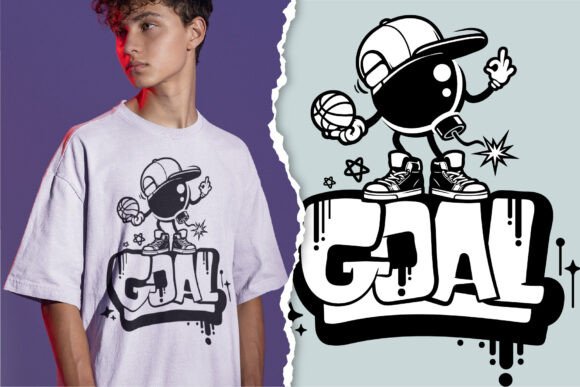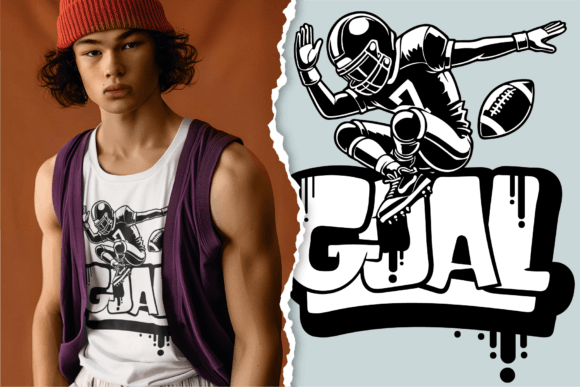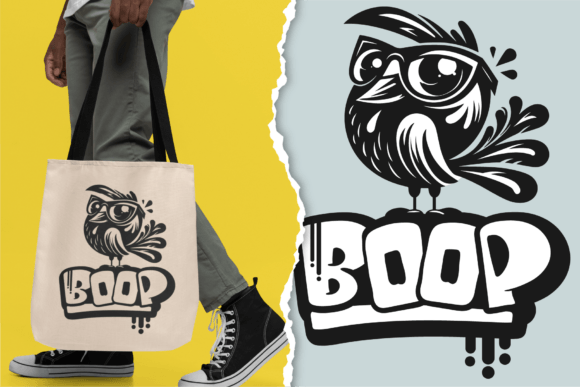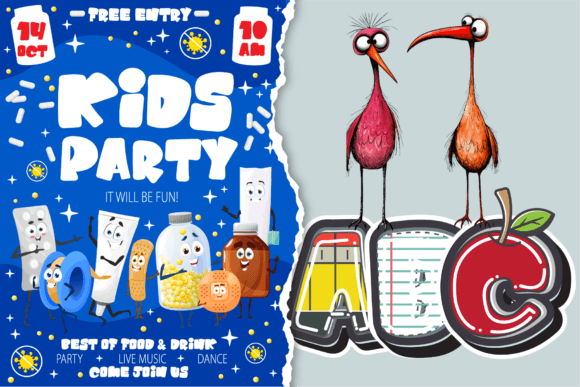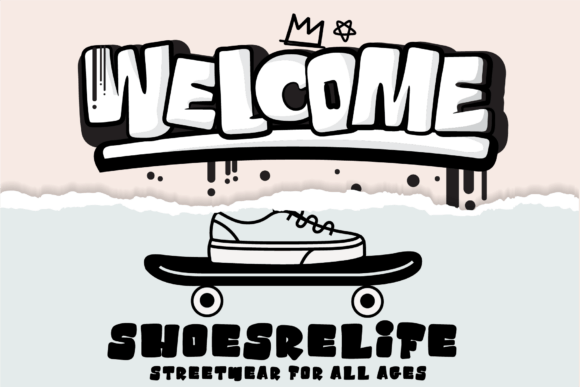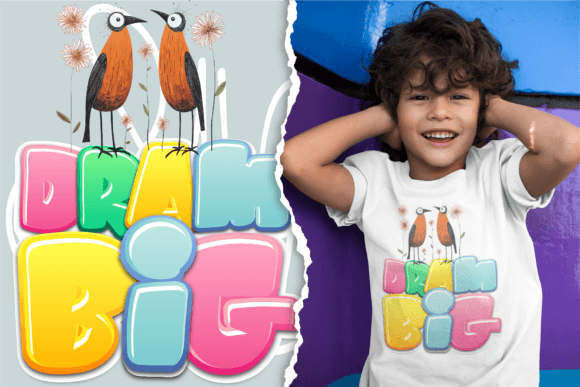
Introduction to Floxy Font
Floxy is a playful graffiti font bursting with fun and urban vibes.
Perfect for young audiences, it brings cool street art energy to any design Whether youโ€™re working on a kidโ€™s project, cartoon-inspired art, or trendy urban graphics, Floxy adds a creative and dynamic edge.
Key Features of Floxy Font
Why Choose Floxy Font?